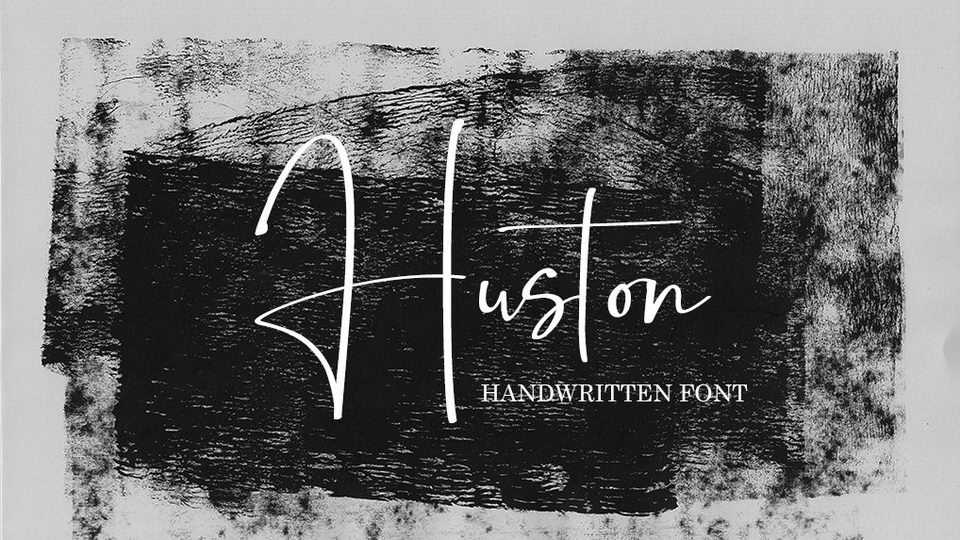
Download Huston font, a cute and casual handwritten script with an incredibly friendly feel. Whether you’re looking for fonts for Instagram or calligraphy scripts for DIY projects, Huston will turn any creative idea into a true piece of art!
Designer: Dav Studio